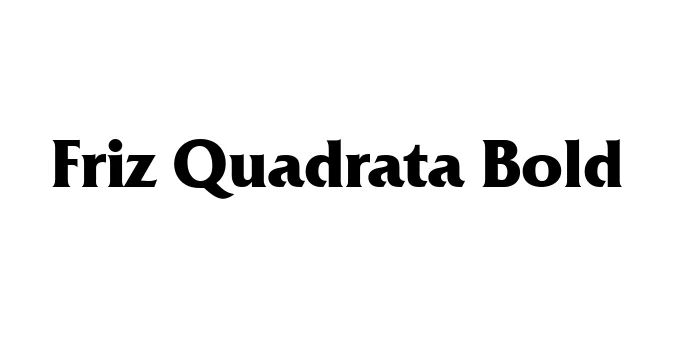
Friz Quadrata Bold
Designed by Ernst Friz, Victor Caruso
| Font Name | Friz Quadrata |
| Category | Glyphic Serif |
| Designer | Ernst Friz, Victor Caruso |
Friz Quadrata Bold is a distinguished glyphic serif typeface that has become a staple of modern graphic design. Originally designed by Swiss designer Ernst Friz in 1965 for Visual Graphics Corporation, the bold weight was later added in 1973 by Victor Caruso for the International Typeface Corporation (ITC). The font is characterized by its sharp, flared serifs and unusual open counters in lowercase letters like 'b', 'p', and 'q', as well as the '6' and '9', which give it a unique, chiseled appearance reminiscent of stone-carved inscriptions.
Throughout its history, Friz Quadrata Bold has gained immense popularity in corporate branding and the entertainment industry. It is perhaps most famous for its use in the title cards of the long-running 'Law & Order' television franchise and the logos of numerous prestigious universities and government agencies. Its combination of classical elegance and aggressive bold strokes makes it a versatile choice for designers aiming to project authority, reliability, and timelessness in their visual communications.
Friz Quadrata Bold Best Uses
Ideal for high-end corporate logos and professional identity systems.
Perfect for movie posters, television title sequences, and book covers.
Widely used for university seals, diplomas, and official institutional signage.
Excellent for architectural signage due to its sharp, highly legible flared serifs.